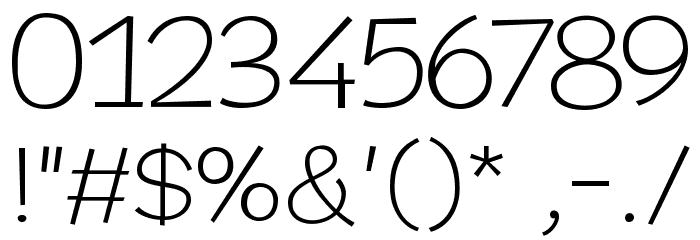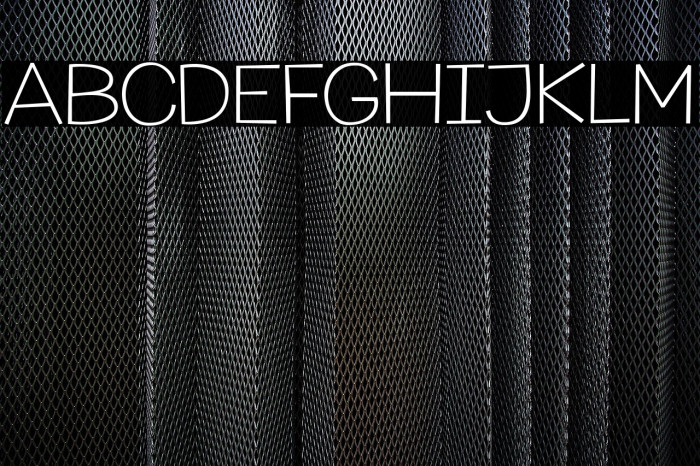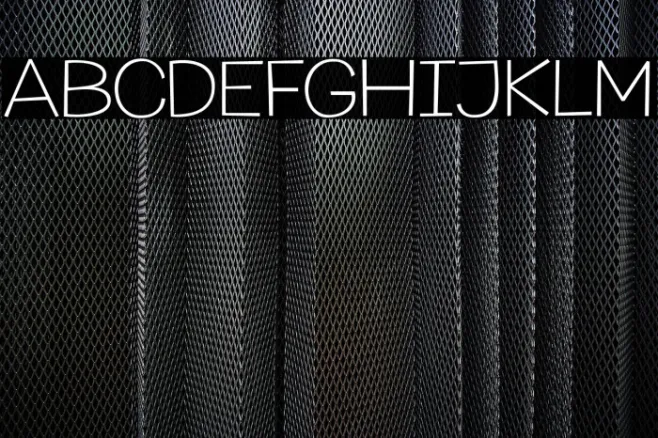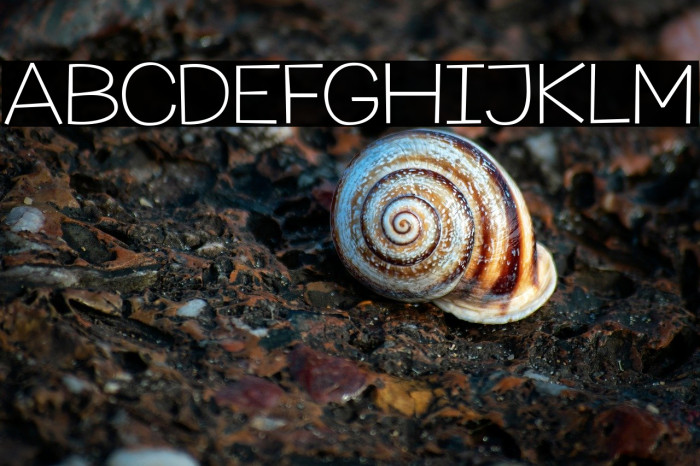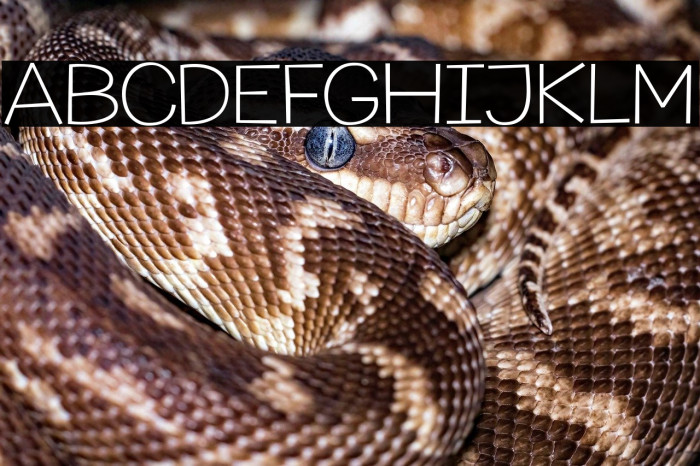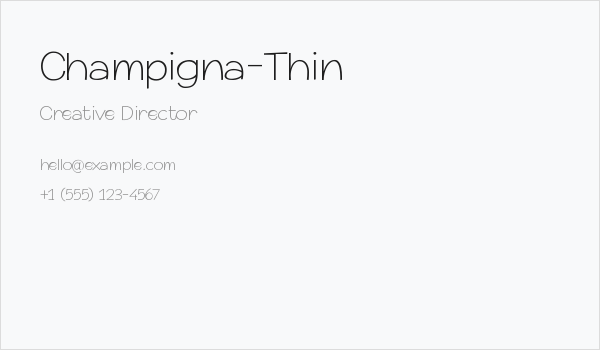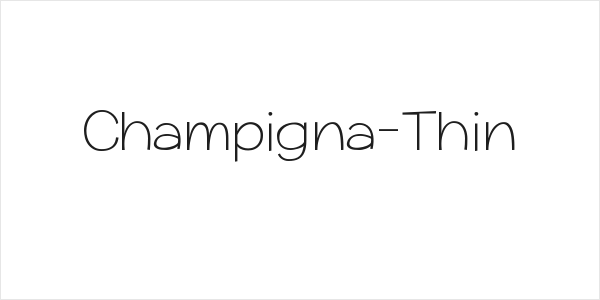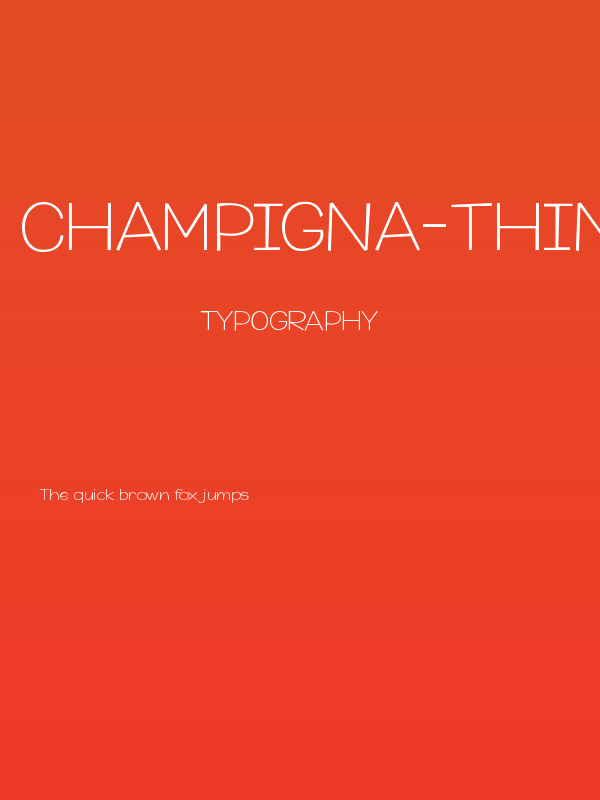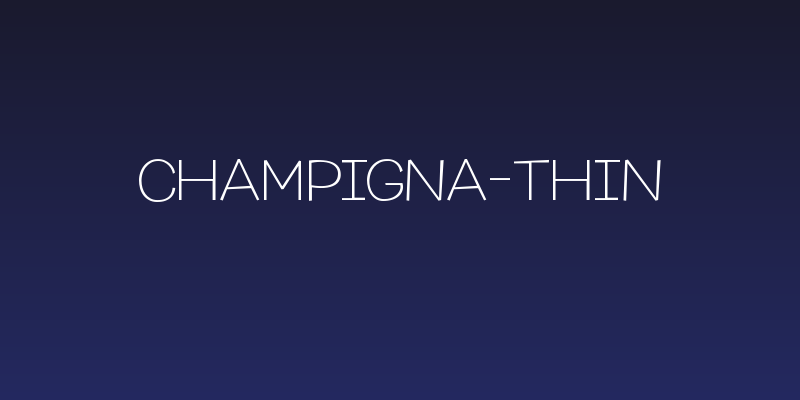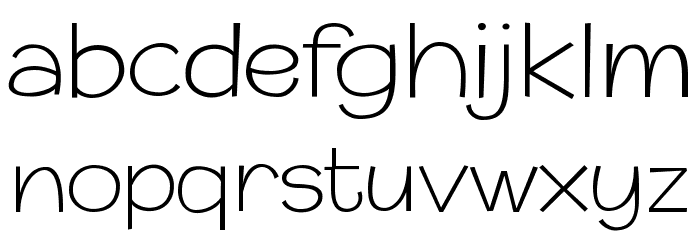
Champigna-Thin Font
Champigna-Thin Description
This font features a clean and modern design with a geometric structure. The characters are thin and evenly spaced, providing a sense of openness and clarity. The uppercase letters have a uniform height, while the lowercase letters maintain a consistent baseline, enhancing readability. The numerals are proportionate and align well with the overall style, making them suitable for both text and numerical data. Special characters are distinct and maintain the font's minimalist aesthetic, ensuring versatility across various applications.